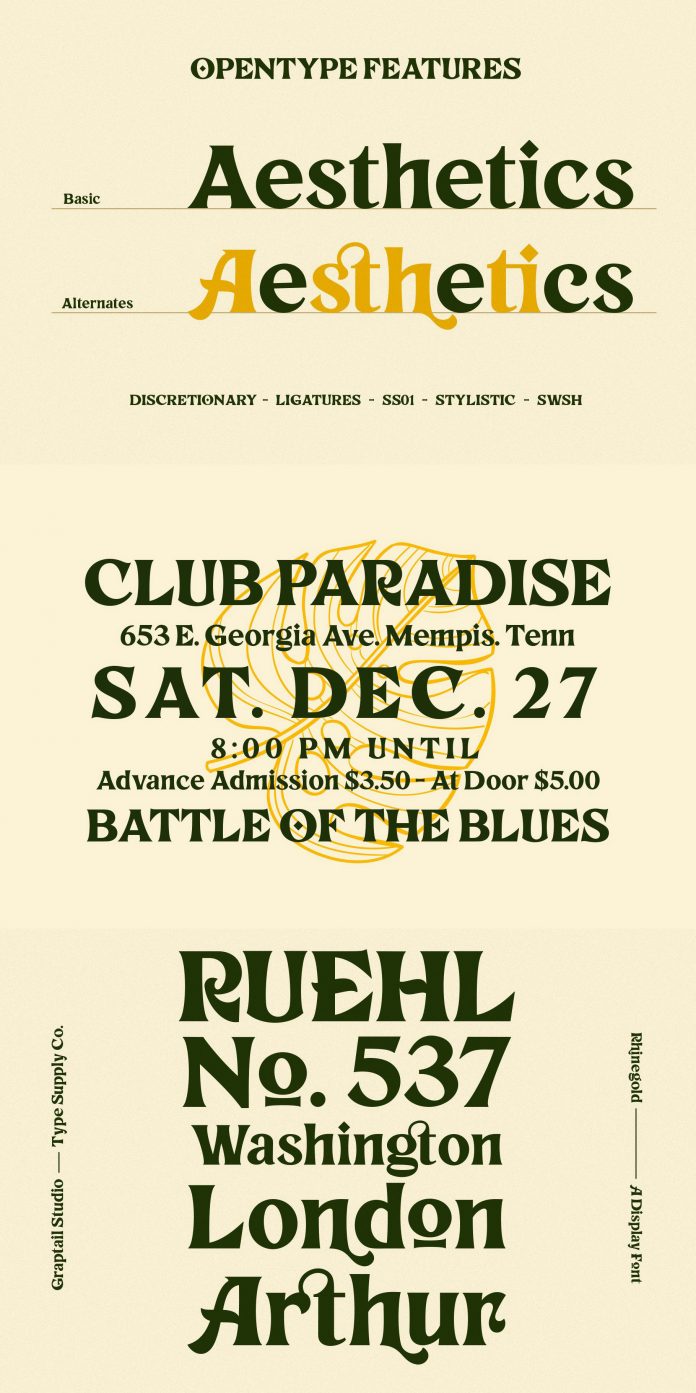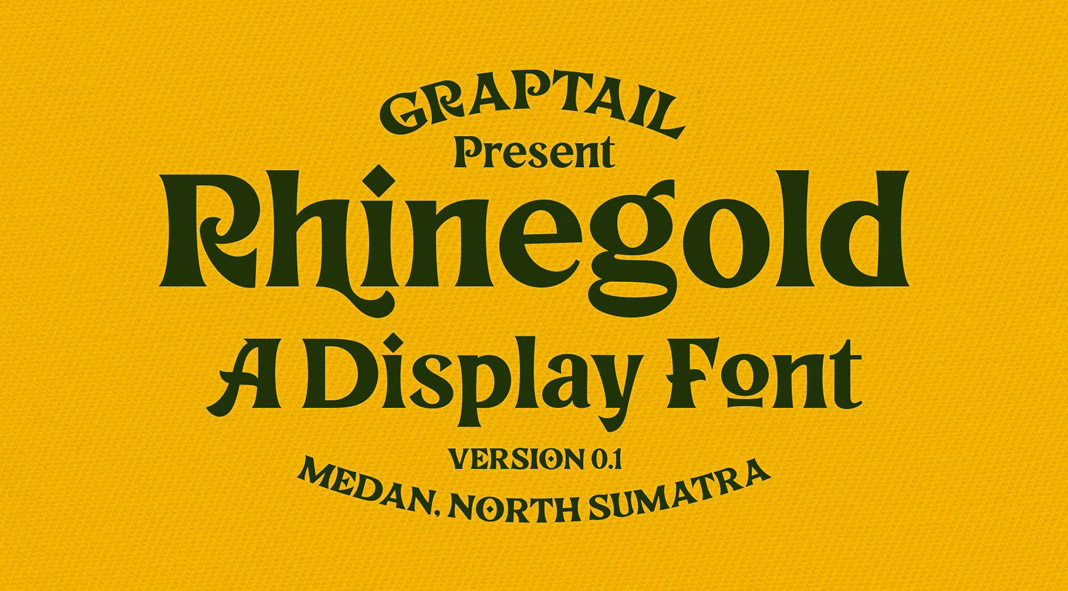
Rhinegold, a vintage-inspired display font with elegant OpenType features.
Designed and published at the end of 2020 by graphic design studio and independent type foundry Graptail, Rhinegold is an elegant display font inspired by classic vintage lettering and good old poster designs. It is equipped with uppercase and lowercase characters as well as numerals, punctuations, and plenty of elegant OpenType features including alternates, ligatures, and swashes. Using these OpenType features, you can customize your typographic work in various ways. Rhinegold is a great choice for classic logotypes, posters, apparel design, letterheads, labels, etc.